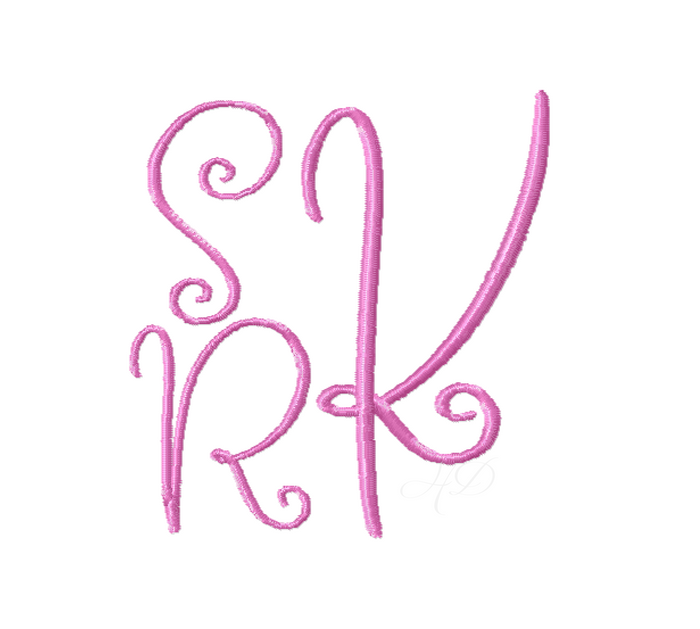
Susie Lucy Script Embroidery Font for Custom Monograms
Susie Lucy Script Embroidery Font 4x4
Discover the stunning versatility of the Susie Lucy Script Embroidery Font, a must-have for any crafting enthusiast. This single-color satin stitch font features uppercase and lowercase letters (A-Z) and numbers (0-9), enabling you to personalize your projects with elegance.